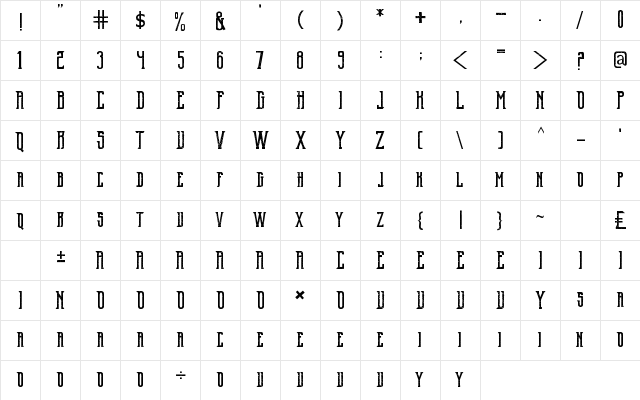
Old Excalibur Vintage wears its vintage influences proudly, with letterforms that recall mid-century signage, classic packaging, and nostalgia-driven design.
Font Pairing: Combine Old Excalibur Vintage with a simple slab or neutral sans - period-accurate companions reinforce the vintage feel without competing for attention.
Pro Tip: Lean into Old Excalibur Vintage's period character by pairing it with aged paper textures, muted colour palettes, and vintage illustration styles.